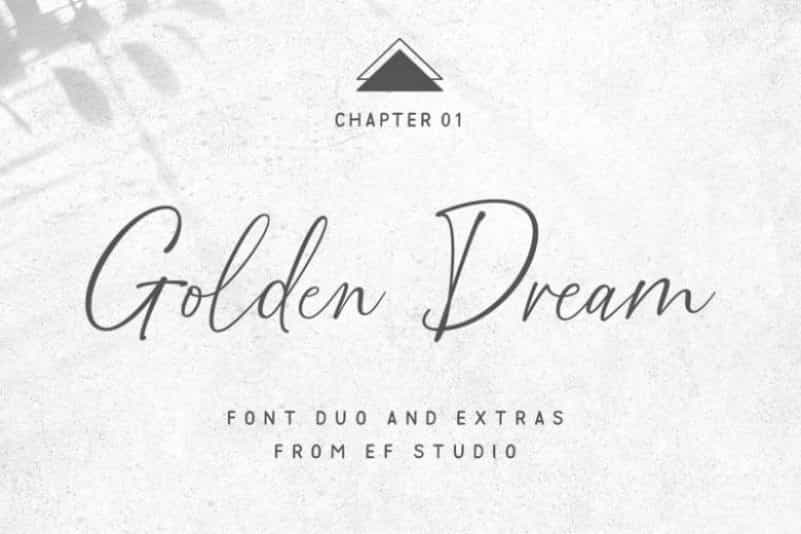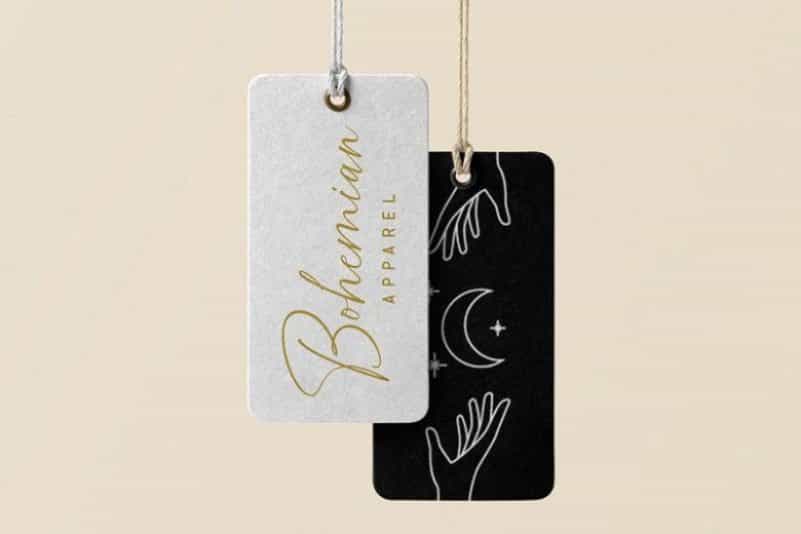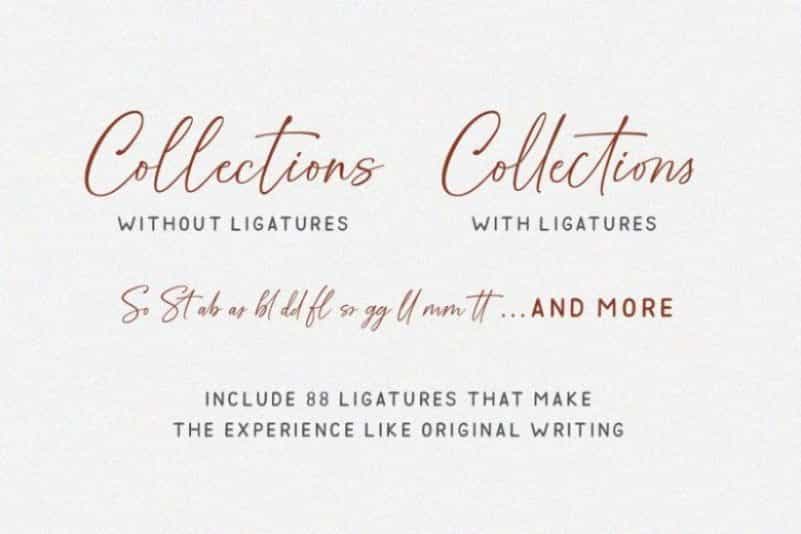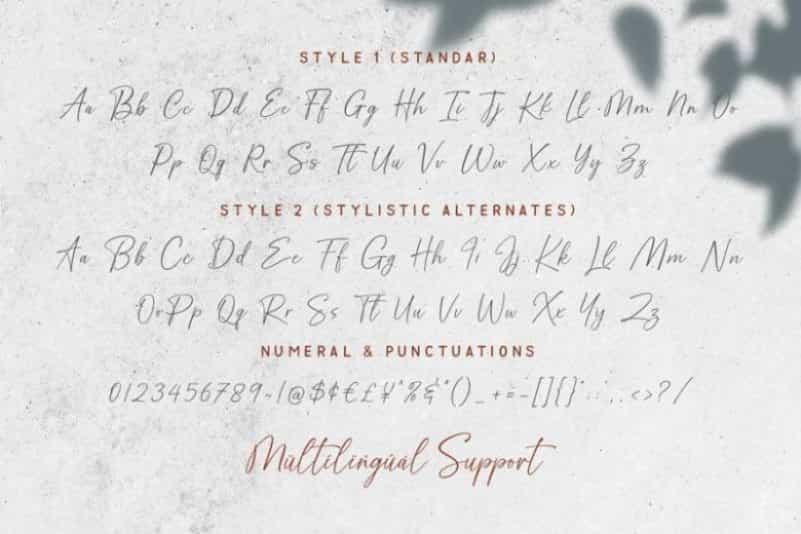
Golden Dream is a new modern & fresh script with a handwritten and script style make this font looks elegant, natural, stylish and perfect for any awesome projects that need handwriting taste. It is design and shared by Ef Studio. It is dedicated to all those who are striving for a dream. writing with this font is a prayer that will make you more struggling and make you more confident that I can.